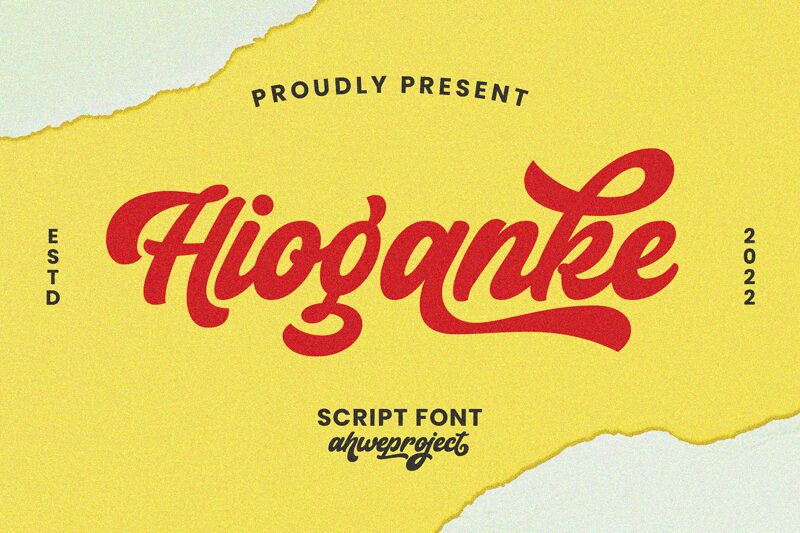
Hioganke, a masterful creation by Ahwe Project, showcases a smooth brush font style that exudes confidence and elegance. Its bold weight commands attention and adds a touch of authority to any project. With its semi-condensed width, this font is highly versatile and suitable for a wide range of design endeavors.
From sophisticated logo designs to eye-catching headlines, Hioganke effortlessly captures the essence of professionalism. Whether it's an editorial layout or branding materials, this font will leave a lasting impression on your audience with its unique blend of refinement and artistic flair.